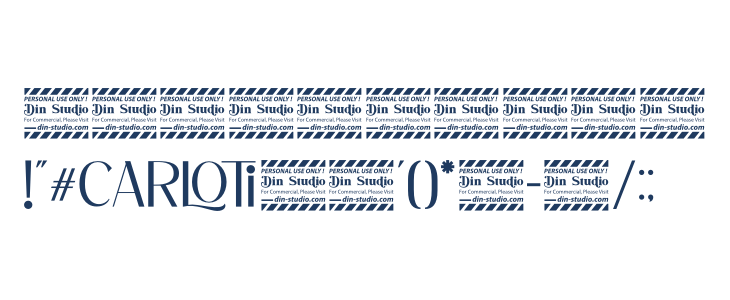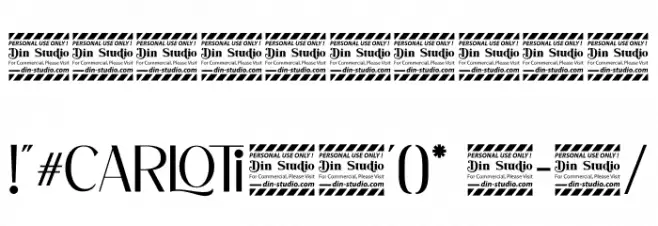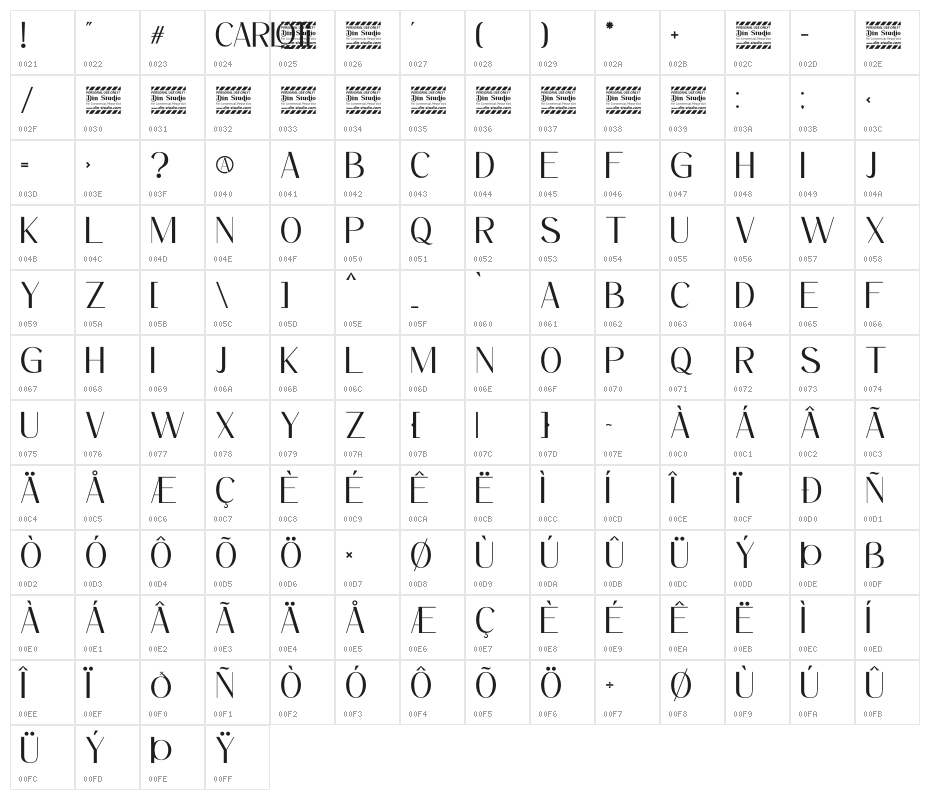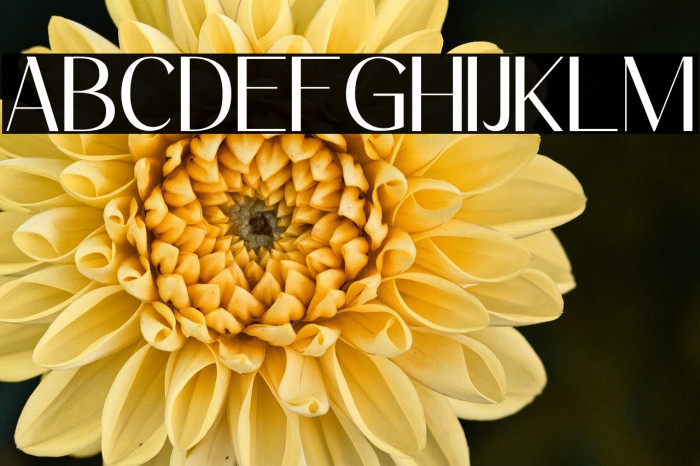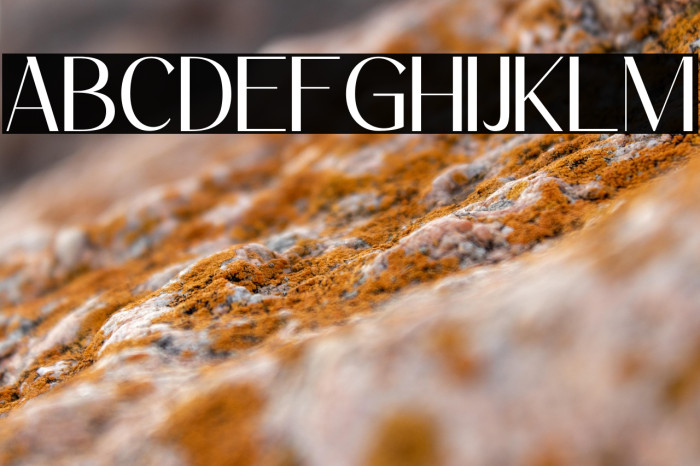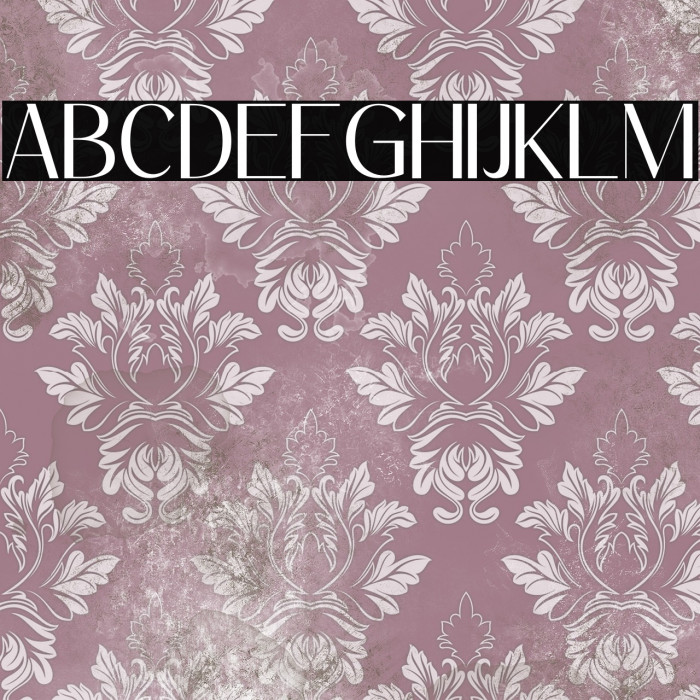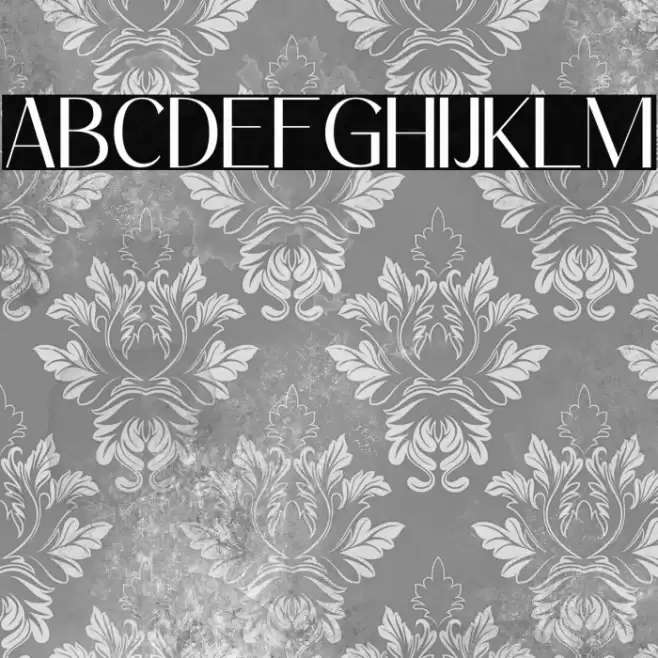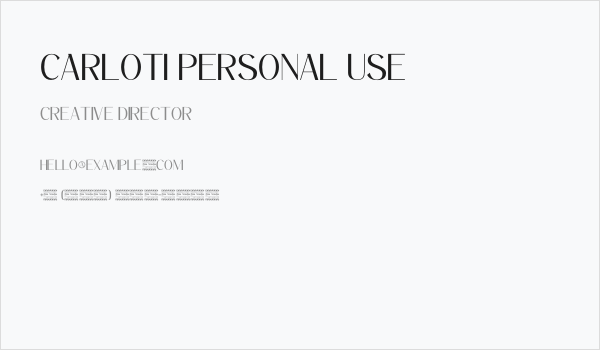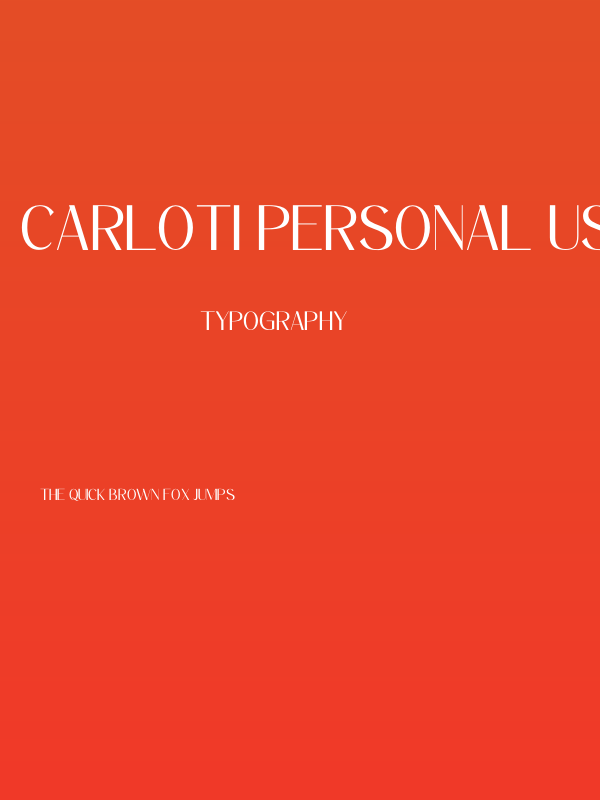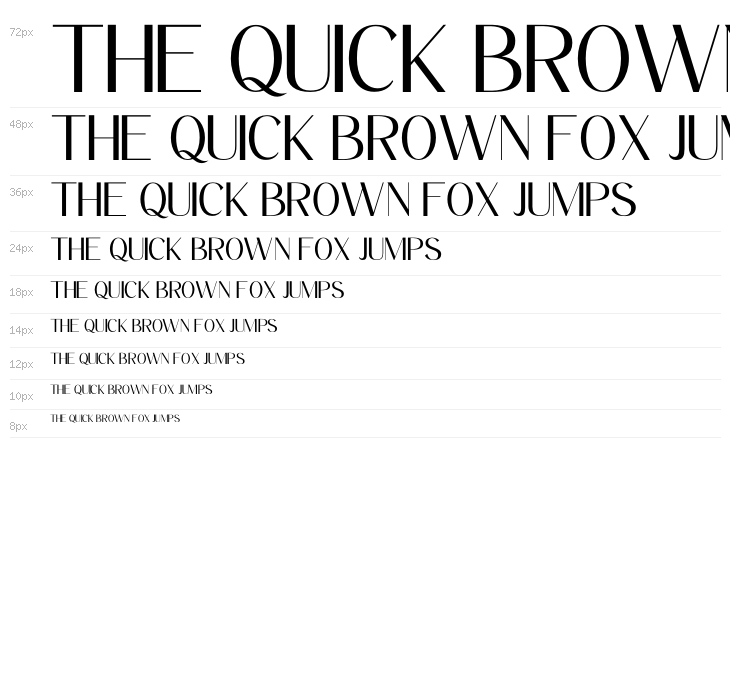
Carloti personal use Font
Carloti personal use Description
This font features a modern and elegant design with a high contrast between thick and thin strokes, giving it a sophisticated and stylish appearance. The uppercase letters are tall and slender, with sharp angles and clean lines, while the lowercase letters maintain a consistent style with a slightly more rounded approach. The numerals and special characters follow the same design principles, ensuring a cohesive look across all elements. The font's overall aesthetic is both contemporary and timeless, making it suitable for a variety of design applications.
| Overall Style | Modern, Elegant |
| Proposed Projects | Ideal for luxury branding, fashion magazines, elegant invitations, and high-end product packaging. |